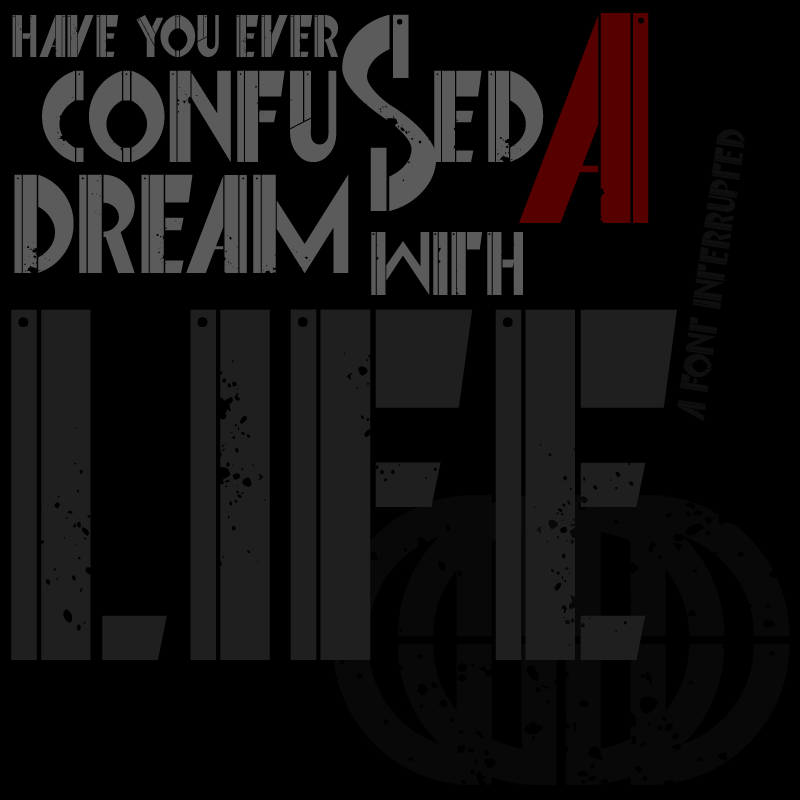
Preview and download Font Interrupted Font. Created by MuraKnockout Media + Design in Fancy Eroded styles with 100% Free license.
Check out my new Font Blog to stay up to see when I release new fonts! http://murafonts.blogspot.com/ ----------------------- A Razor Sharp font for your magical font suitcase. This is a super sharp number and letter set for your titillating titling needs. Maybe you can use it for a flyer for your bands next performance? Maybe you like to write cryptic messages on your social networking thumbnail images? This font is definitely a permanent solution to your short term problem. ----------------------- This is free to do with whatever you wish, personal or commercial. Just don't claim ownership, sell it, redistribute it, or be a jerk with it. Please DO NOT download this font and redistribute it on another website!!! It might be cool if you use the font to either credit MuraKnockout Media or Michael Muranaka, or show me how you used it! Enjoy! |